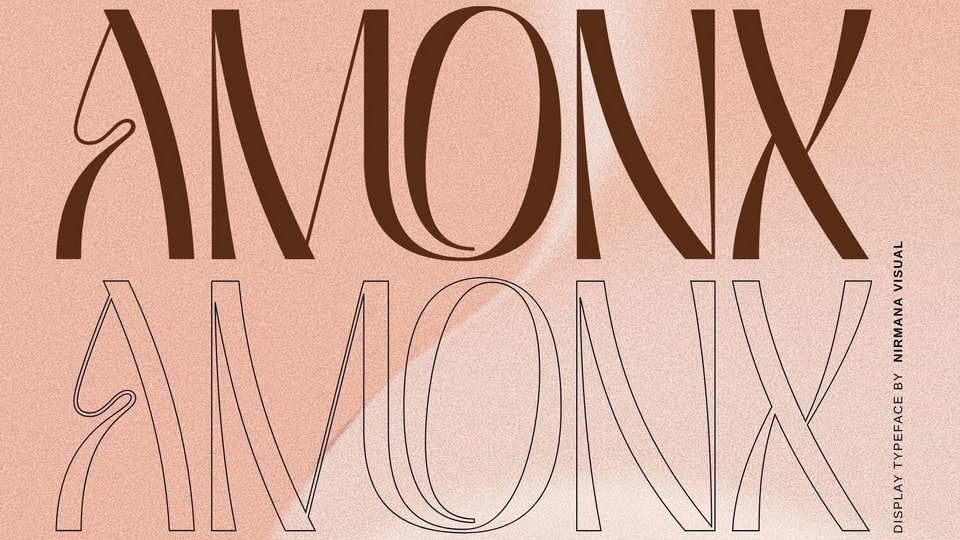
Download Amonx font, a display typeface that offers beautiful typographic harmony for a diversity of design projects. Amonx font is perfect for logos and branding, social media posts, advertisements and product designs.